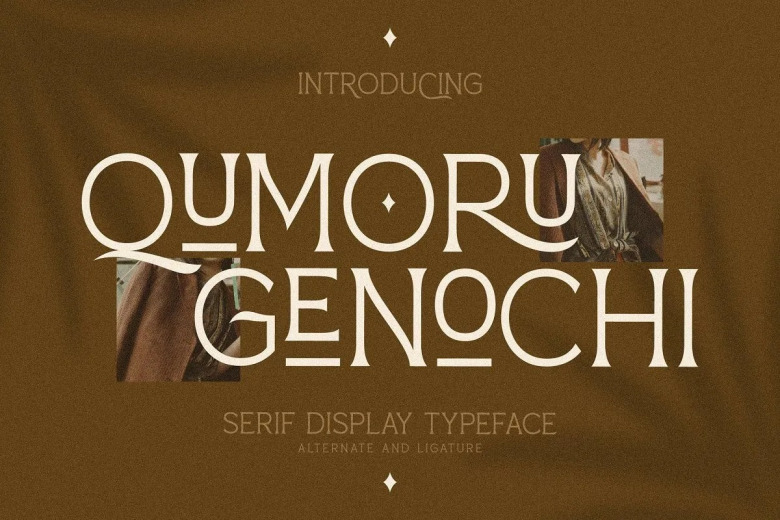
Qumoru Genochi Font
Qumoru Genochi is a font in serif style that is modern and fashionable and has a more feminine touch. This font is specially for luxurious, classy, and a little girly design projects fit perfectly for your modern, chic designs. This font is PUA encoded which means you can access all the glyphs and swashes with ease!
Qumoru Genochi Serif Font